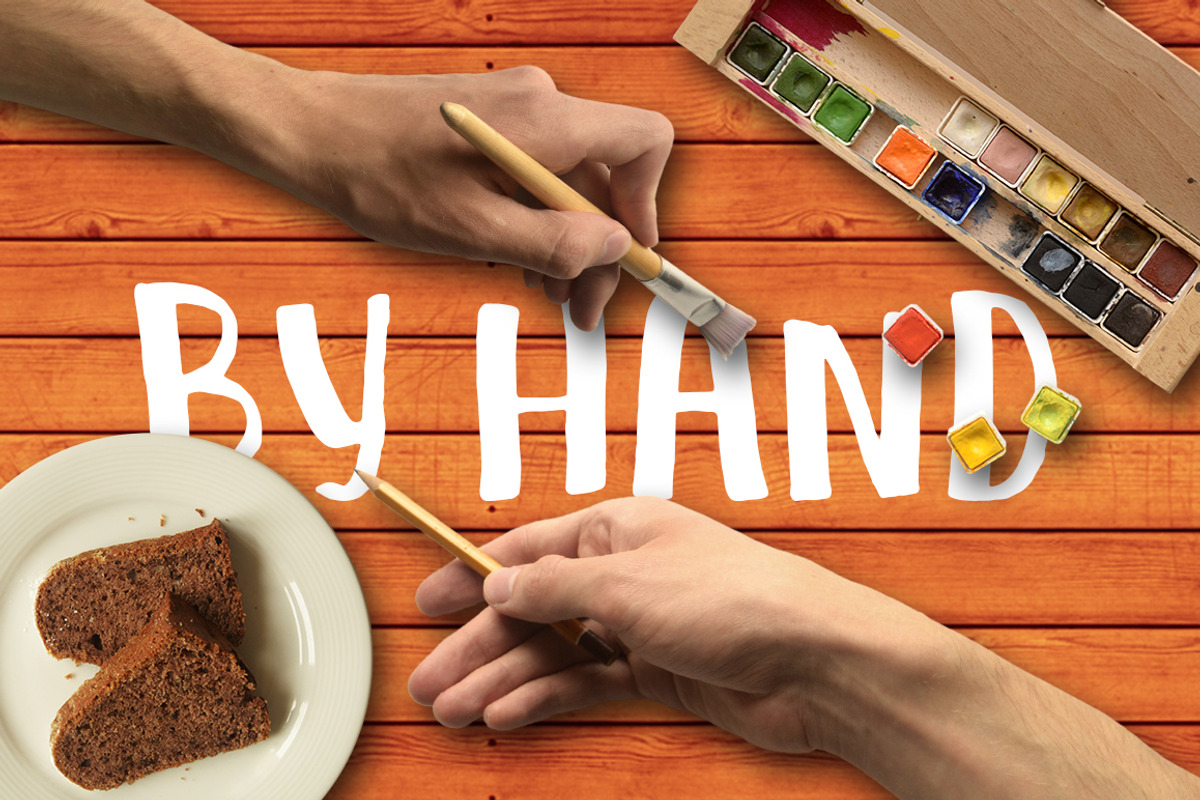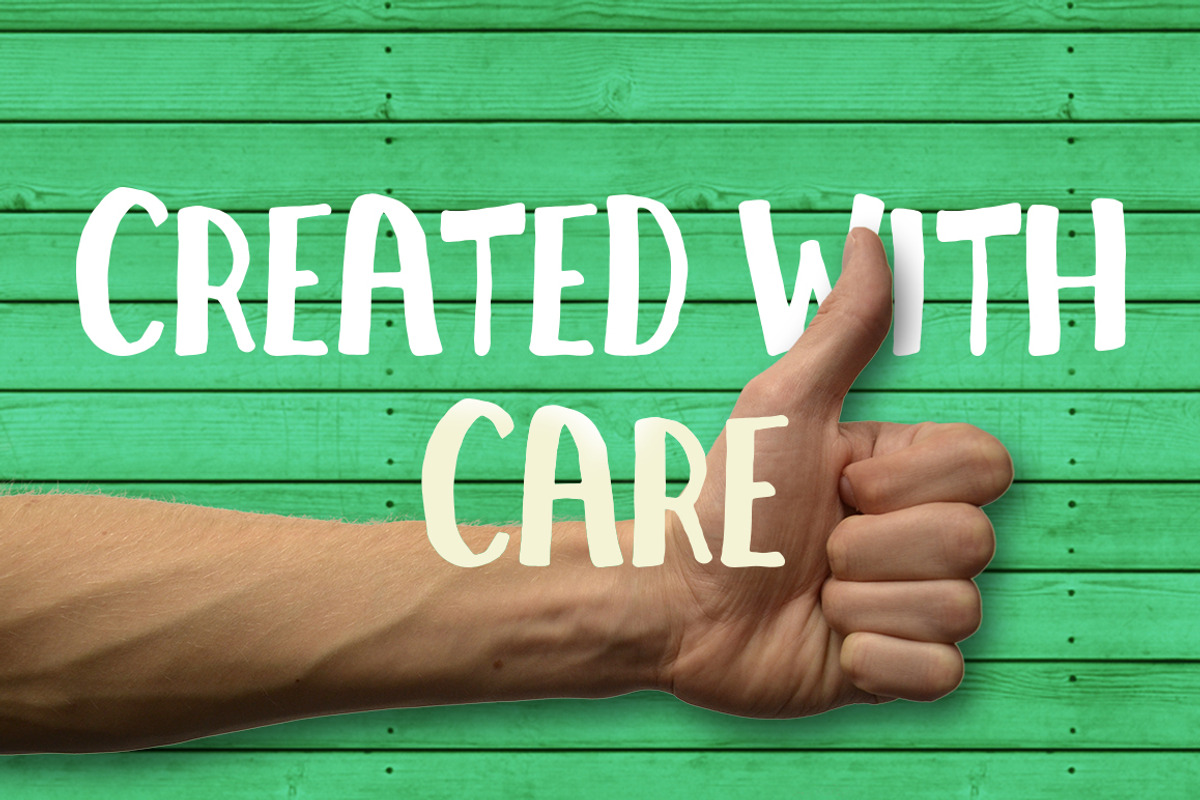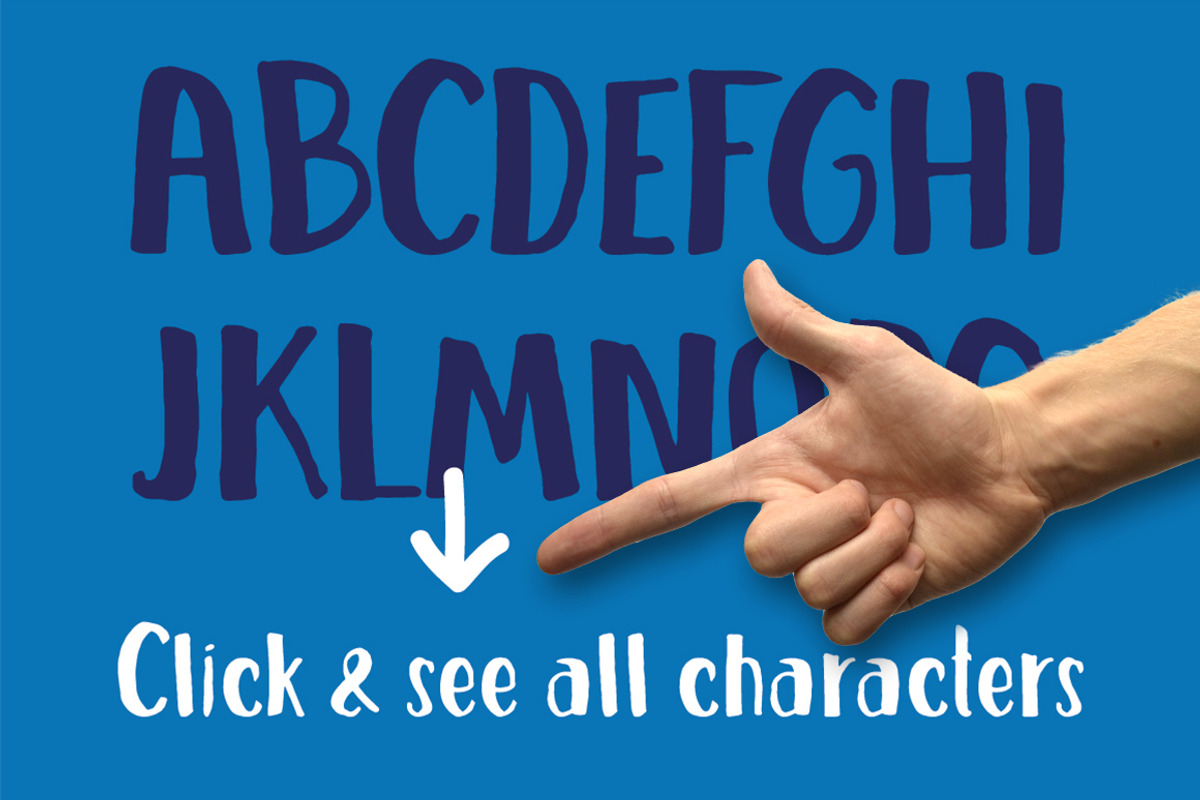
Cheesecake - Tasty Handwritten Font
Cheesecake - Tasty Handwritten Font by Vitek Graphic is a font selected for branding, posters, packaging, typography.
- Lowercase, uppercase and all basic English characters inside!
- No alternates or foreign alphabets supported at this time ( Include only characters displayed on last image) Show More
Why Cheesecake - Tasty Handwritten Font is worth a look
Cheesecake - Tasty Handwritten Font by Vitek Graphic fits naturally into Branding, posters, packaging, typography.